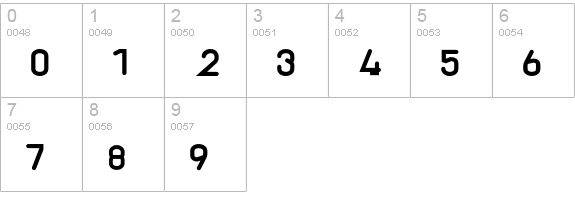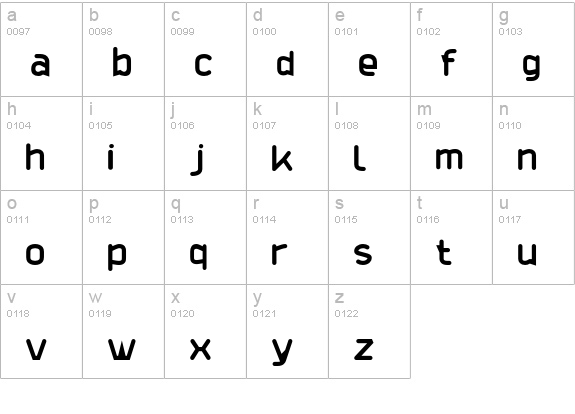
Launderette-Rinse Font Details
Introducing Launderette-Rinse Font, a magnificent typeface that effortlessly combines elegance and versatility. This font is the epitome of grace, perfect for adding a touch of sophistication to any design project. With its clean lines and delicate curves, Launderette-Rinse Font exudes a timeless appeal that is bound to captivate and enchant. Launderette-Rinse Font is not only visually stunning but also incredibly user-friendly. Its legibility ensures that every letter is easily recognizable, making it ideal for a wide range of applications. Whether you're designing a logo, crafting a wedding invitation, or creating a stunning poster, this font will effortlessly elevate your work to new heights of excellence. One of the most remarkable aspects of Launderette-Rinse Font is that it is available for free. Yes, you read that right! This exquisite font is freely available to download at FontsMarket.com, allowing you to enhance your design projects without any extra cost. Embrace the opportunity to bring this font into your creative endeavors, and watch as it transforms your work into a masterpiece. With Launderette-Rinse Font, you no longer have to compromise between style and accessibility. This typeface seamlessly combines sophistication with ease of use, ensuring that your message is effectively conveyed to your audience. Its versatility allows it to adapt to various design styles, from modern and minimalistic to classic and ornate. Don't miss out on the chance to elevate your designs with the elegance and beauty of Launderette-Rinse Font. Download it for free today at FontsMarket.com and explore the limitless possibilities that this exquisite typeface offers. Let your creativity flourish and watch as your designs come to life with the timeless allure of Launderette-Rinse Font.